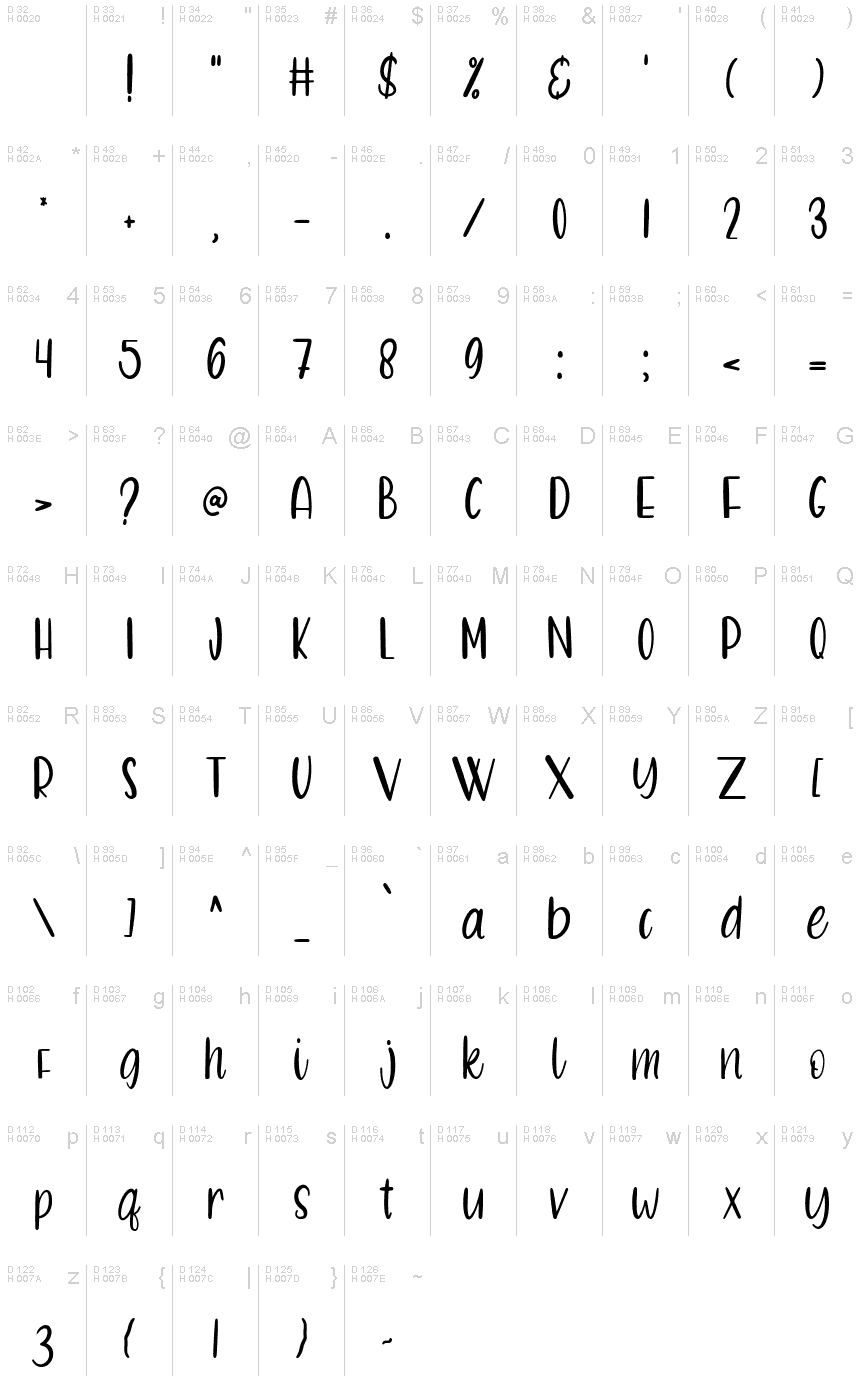
Penguin Surfing
Penguin Surfing font is a quirky handwritten font designed by Isolatype. Look unic dan funny. This font will easily add a fun touch to any craft that you wish to develop!
Isolatype